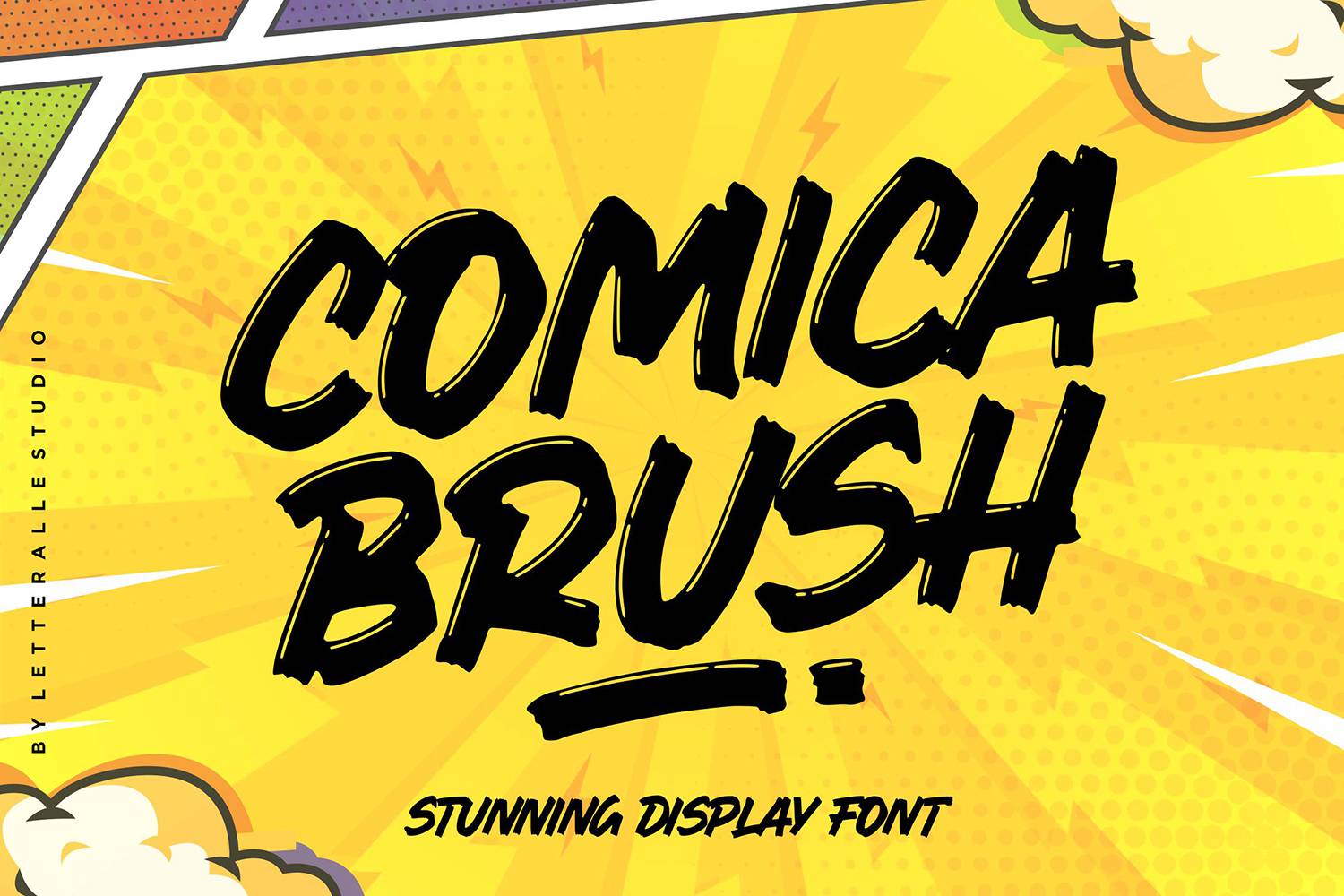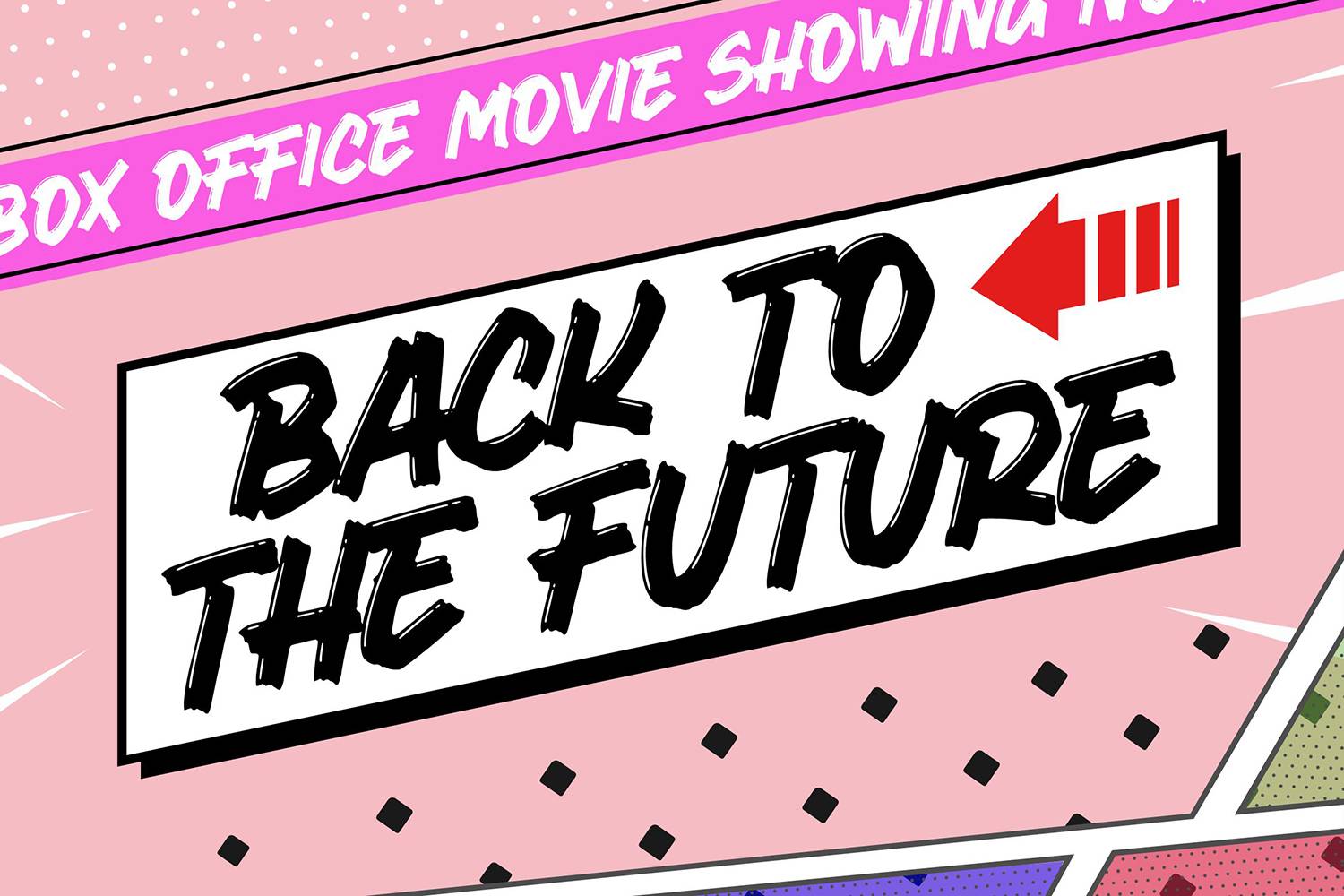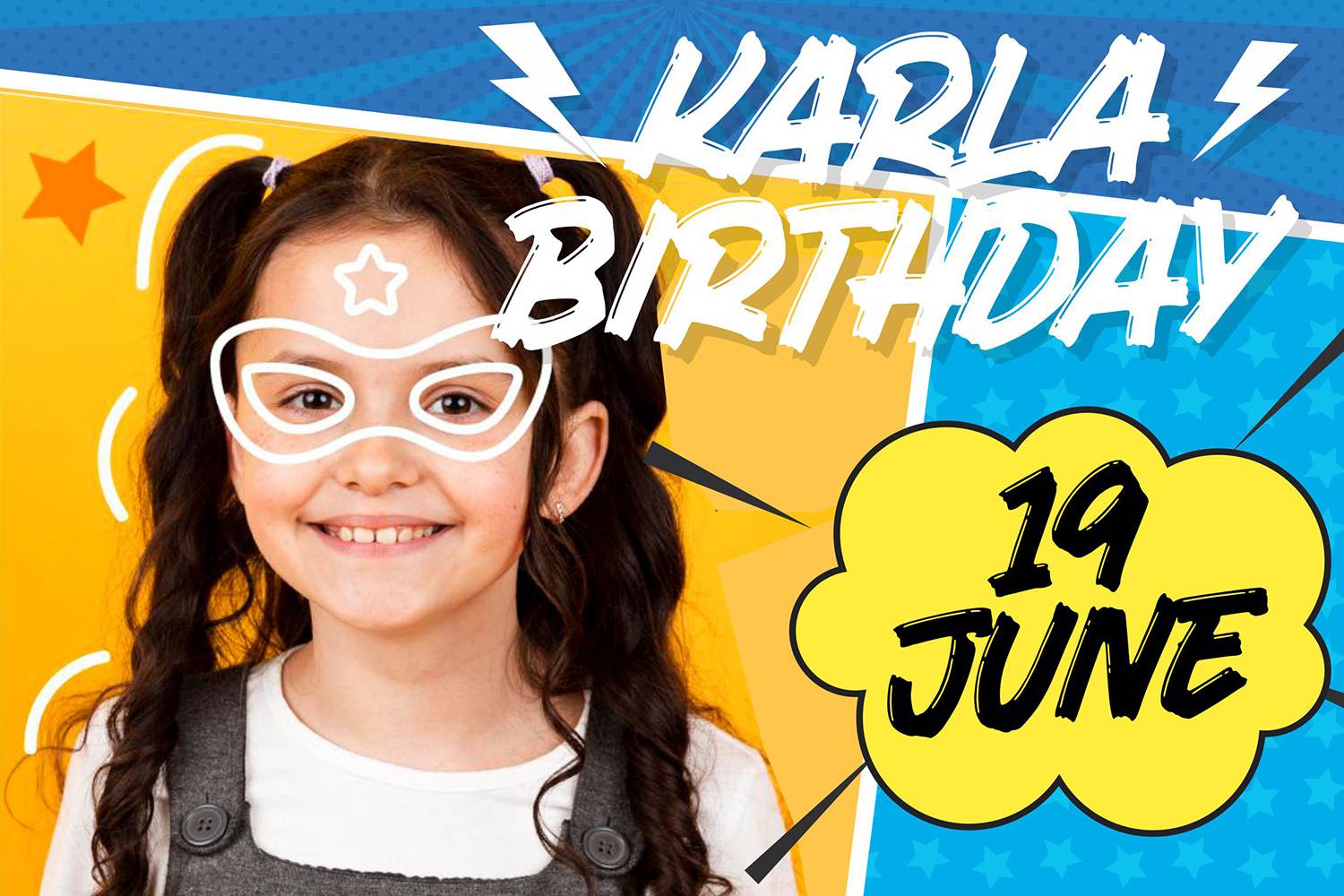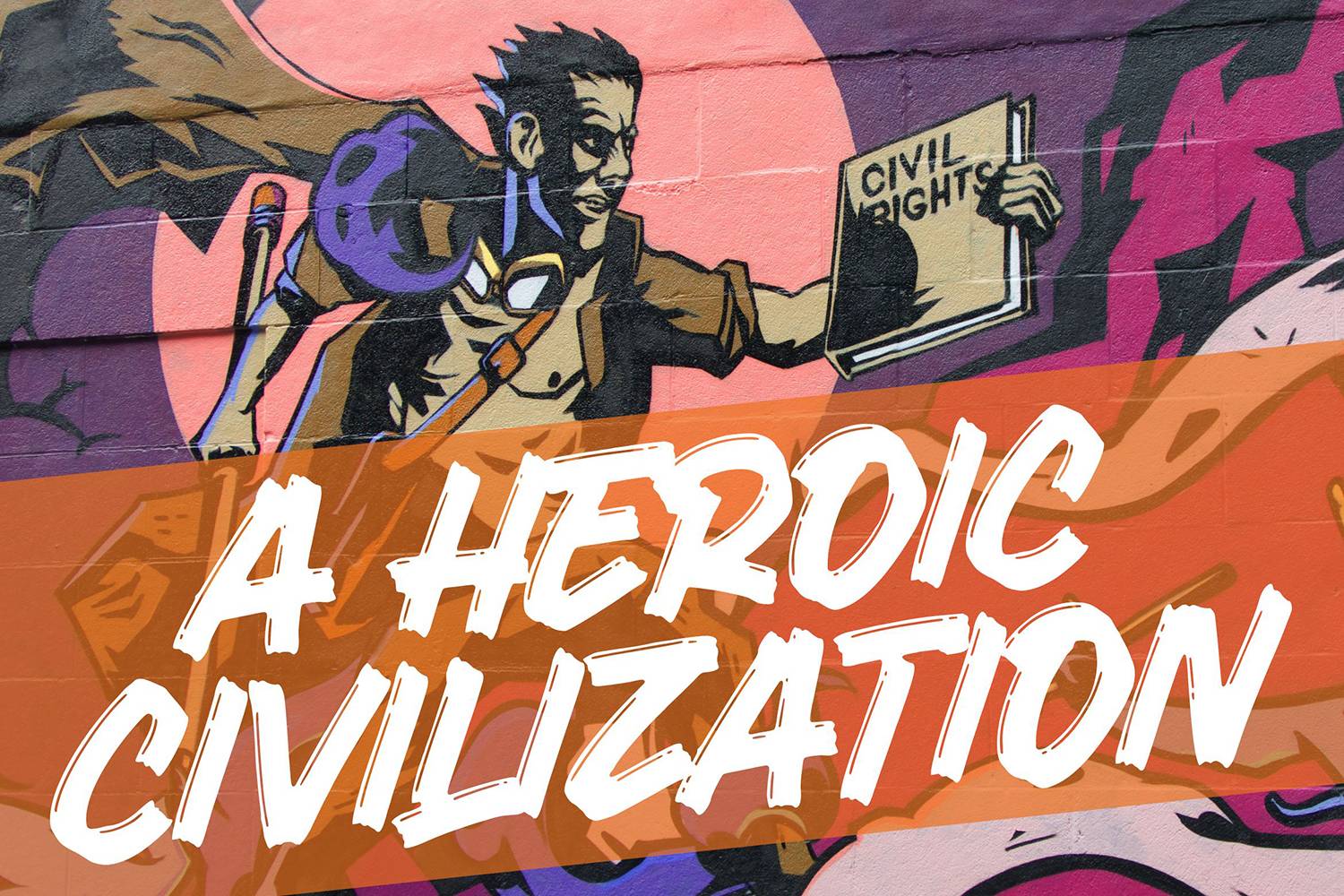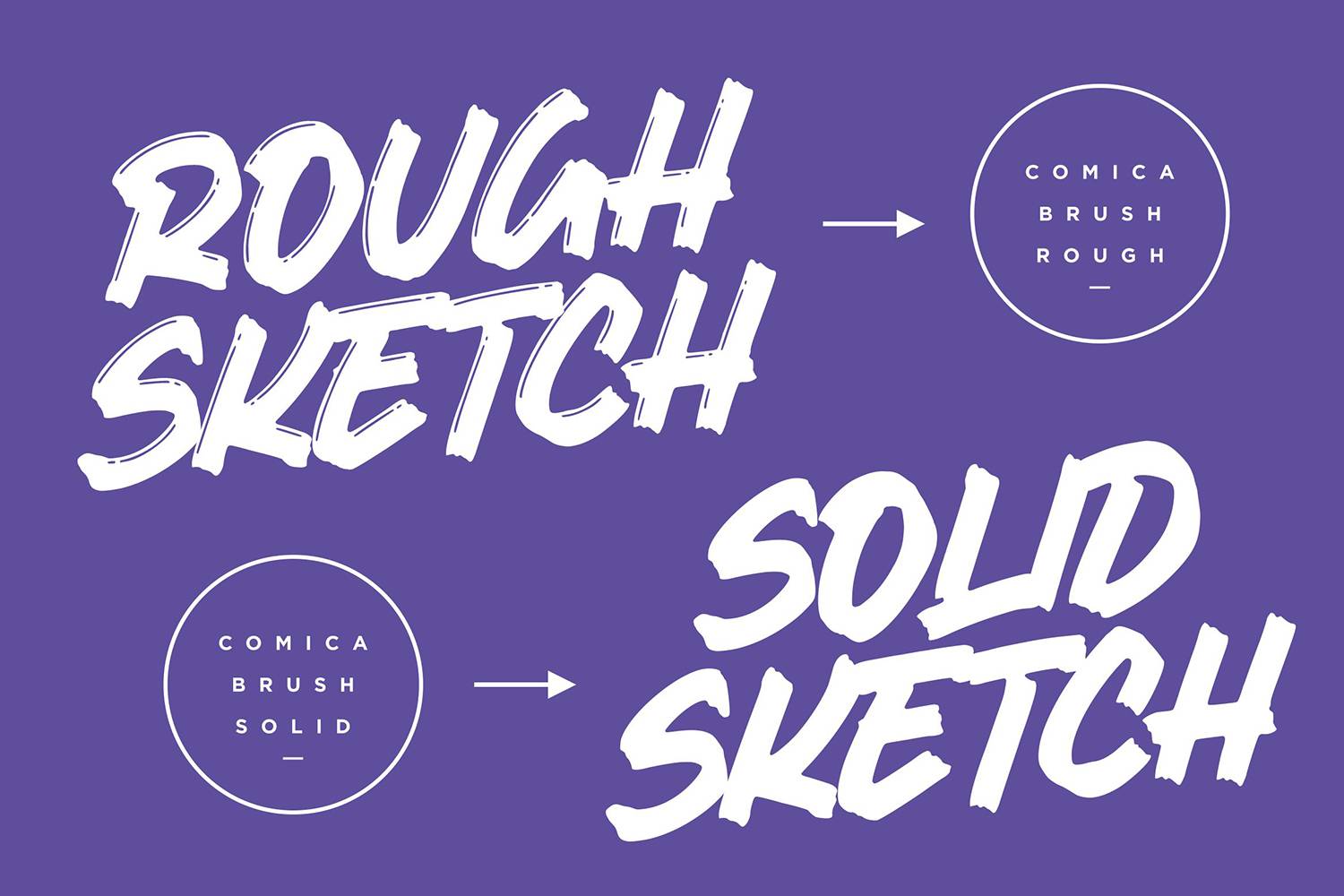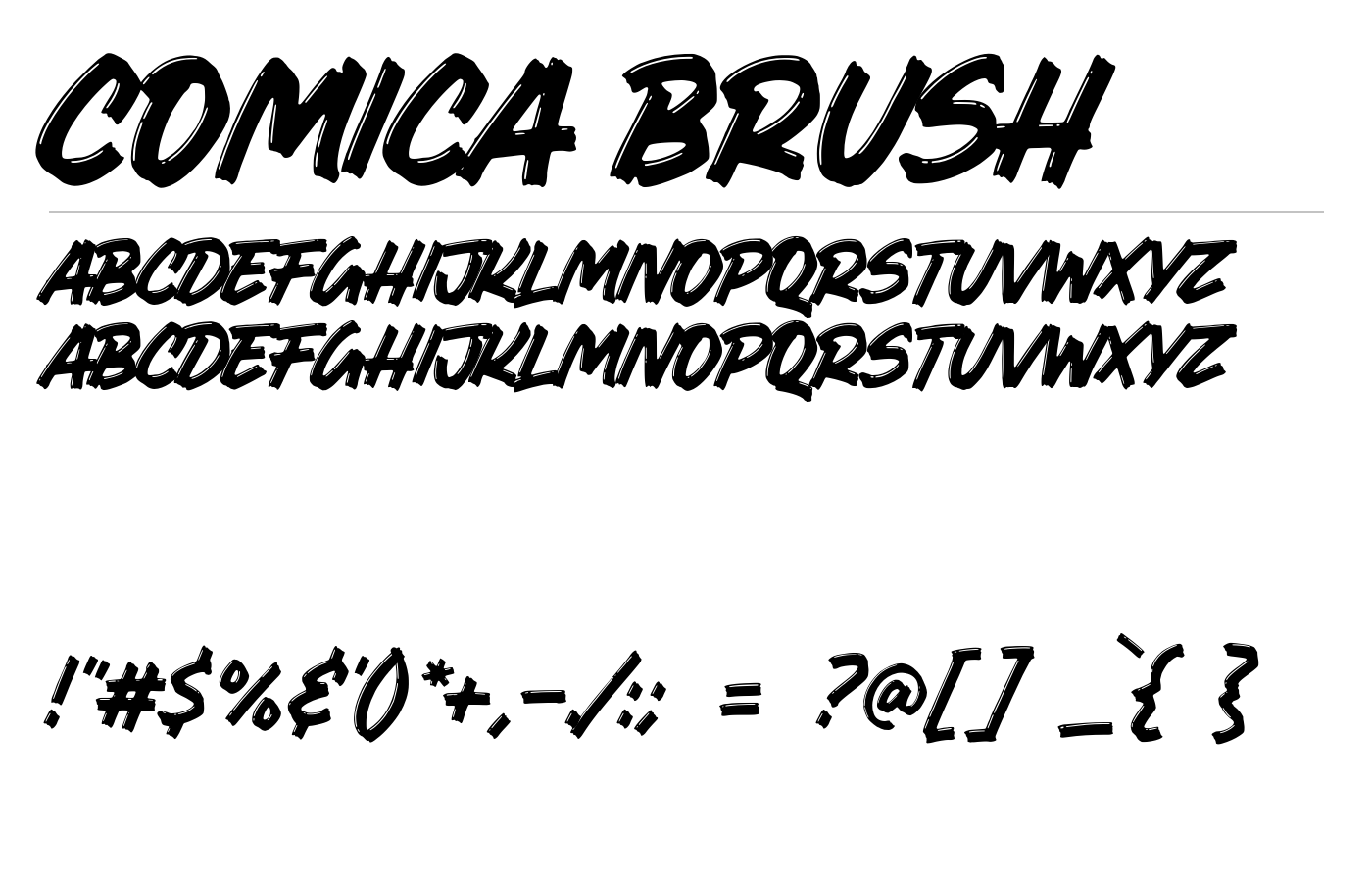
Comica Brush is a bold, informal brush script font that captures the energetic feel of hand-painted lettering. Its thick, textured strokes with slight rough edges give it a dynamic and youthful vibe, making it perfect for playful branding, comic-style designs, and eye-catching headlines. This font works well for projects that want to convey creativity, fun, and a casual, artistic spirit.
Comica Brush Font
About Comica Brush Font
| Font family | Comica Brush Font |
| Designer | Annas Alam Yahya |